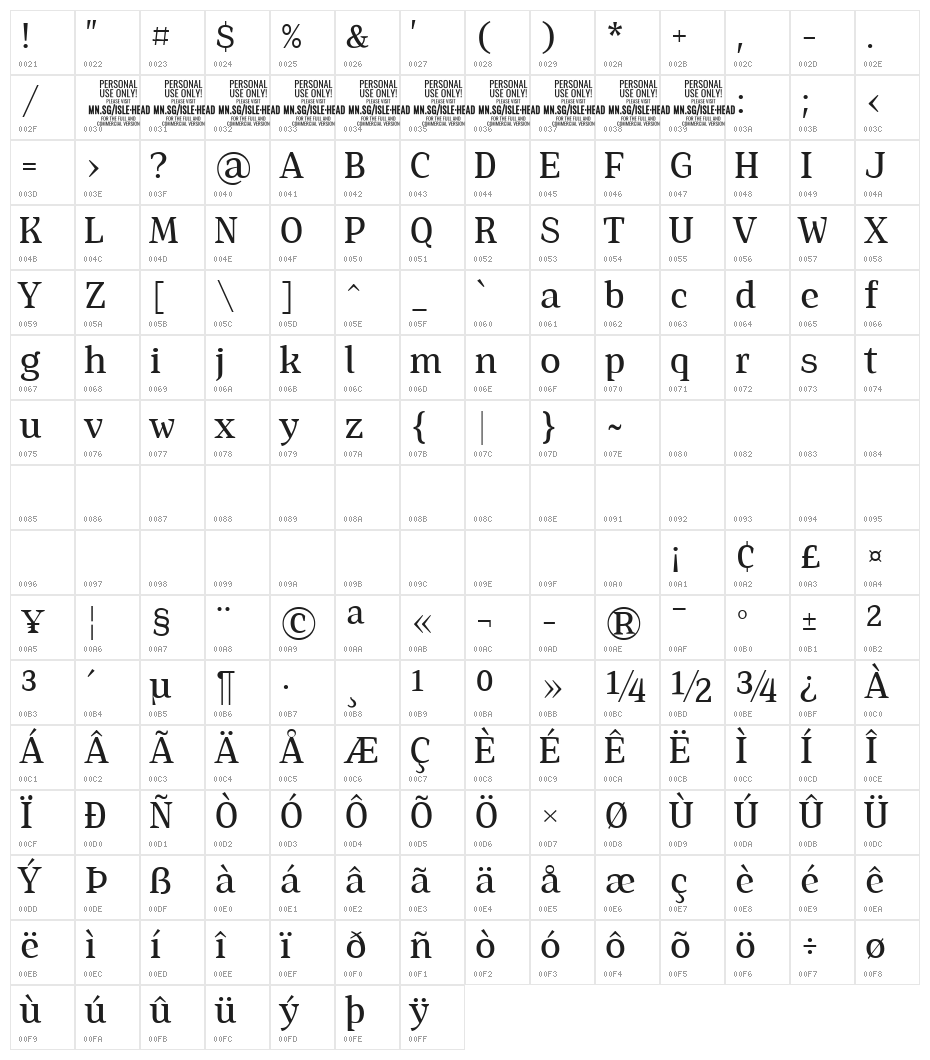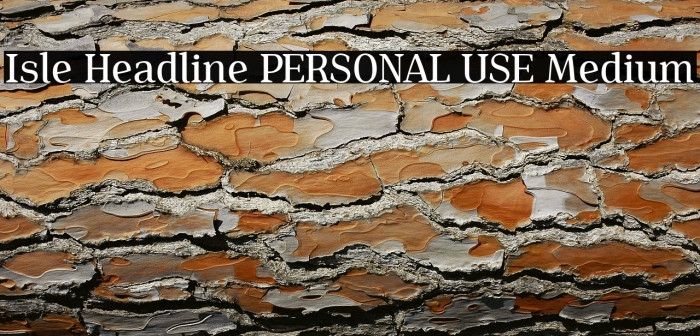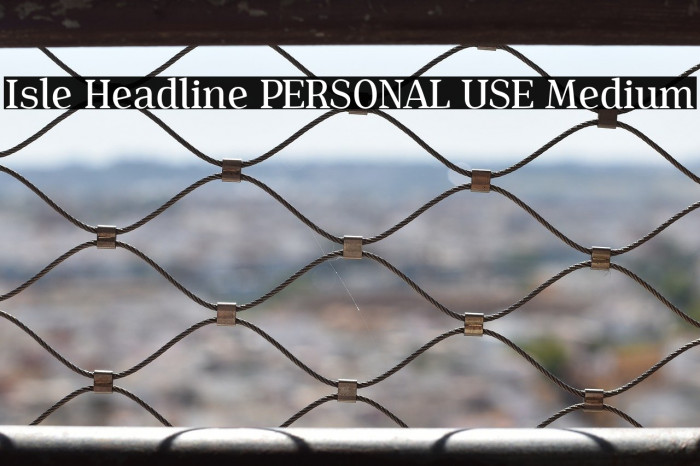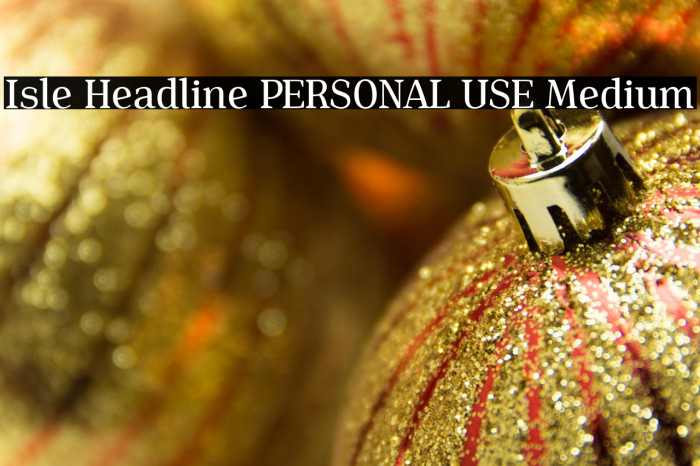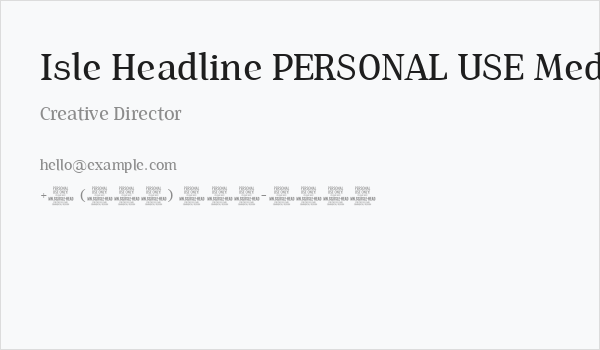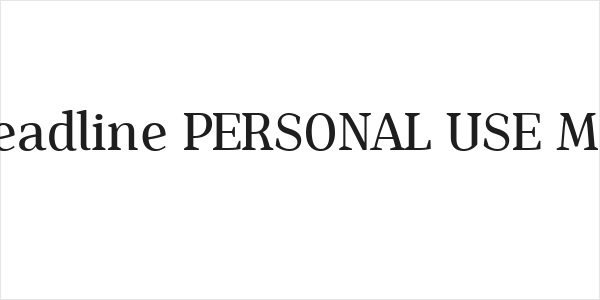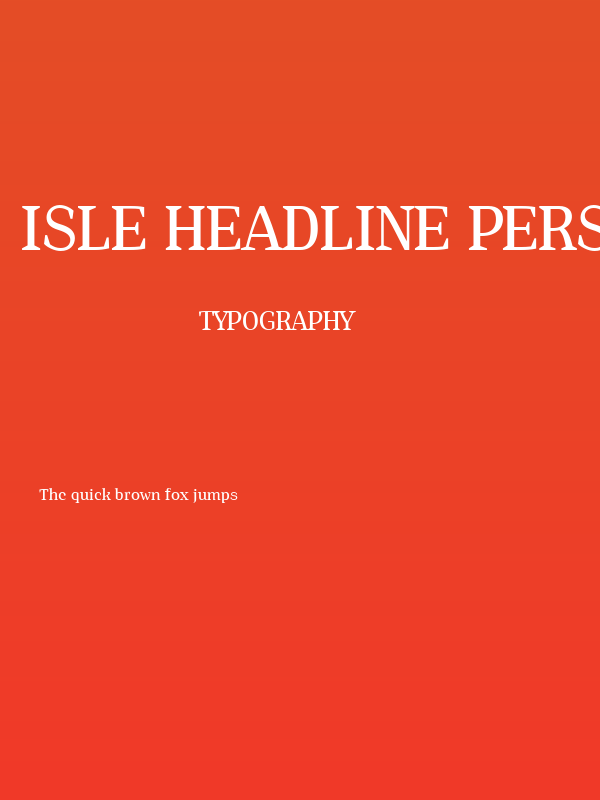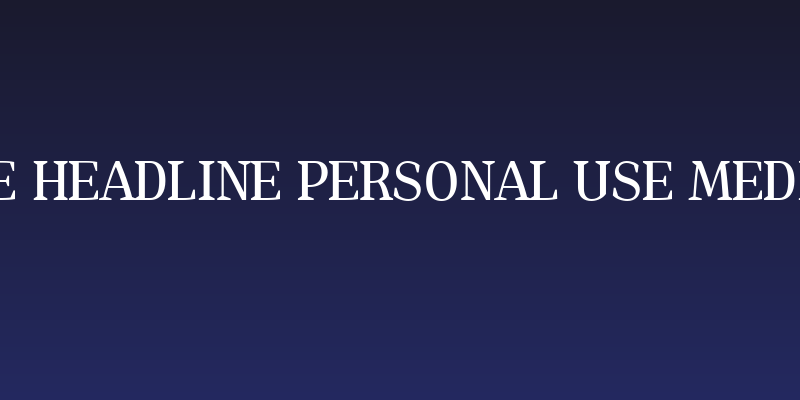
Isle Headline PERSONAL USE Medium Font
Isle Headline PERSONAL USE Medium Description
This font features a classic serif style with a strong presence, characterized by its bold and authoritative strokes. The serifs are pronounced, adding a touch of elegance and tradition to the overall appearance. The uppercase letters exhibit a commanding stature, while the lowercase letters maintain a balanced and harmonious flow. The numerals are clear and distinct, ensuring readability. Special characters are designed with the same attention to detail, making them suitable for various applications. The font's medium weight provides a perfect balance between boldness and subtlety, making it versatile for both headlines and body text.
| Proposed Projects | Ideal for editorial design, book covers, branding projects, and elegant invitations. |